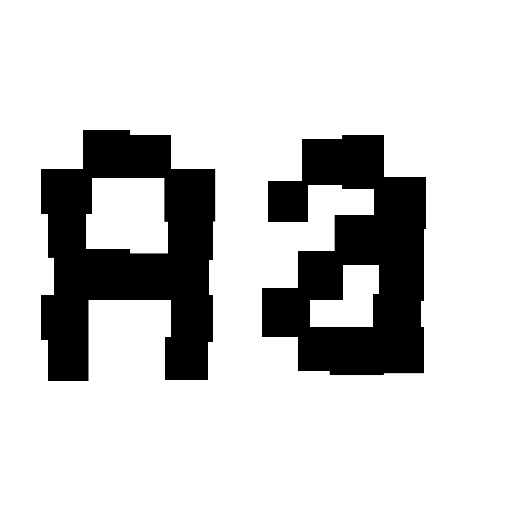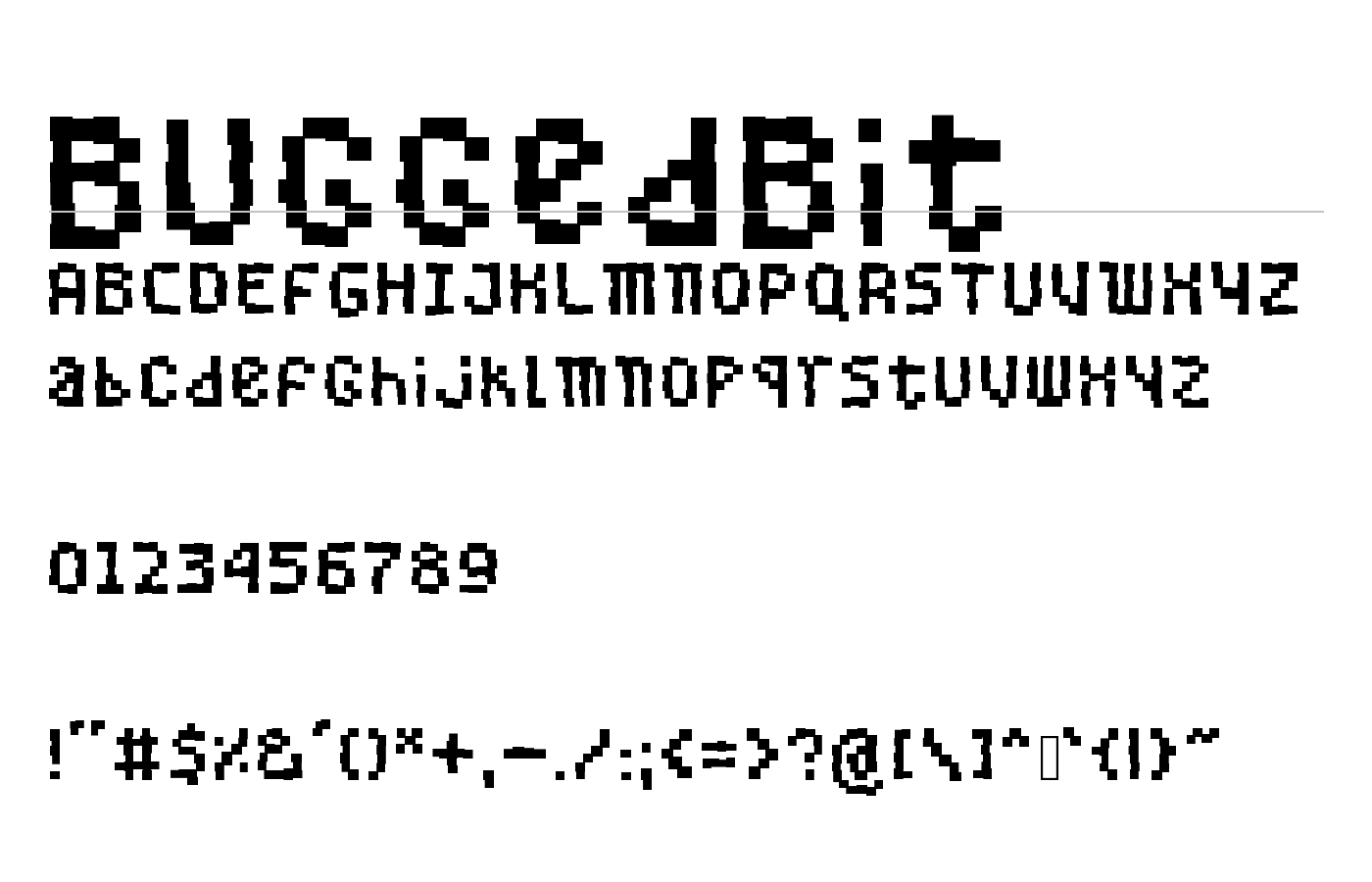
BuggedBit is a pixelated, monospaced sans serif font with a strong retro digital vibe, perfect for evoking early computer graphics or video game aesthetics. Its blocky, low-resolution style carries a playful, tech-inspired personality that works great for creative projects, game design, or any content aiming for a nostalgic or futuristic tech look. This font shines in headlines, logos, and digital-themed designs where a bold, distinctive pixel art feel is desired.
BuggedBit Font
About BuggedBit Font